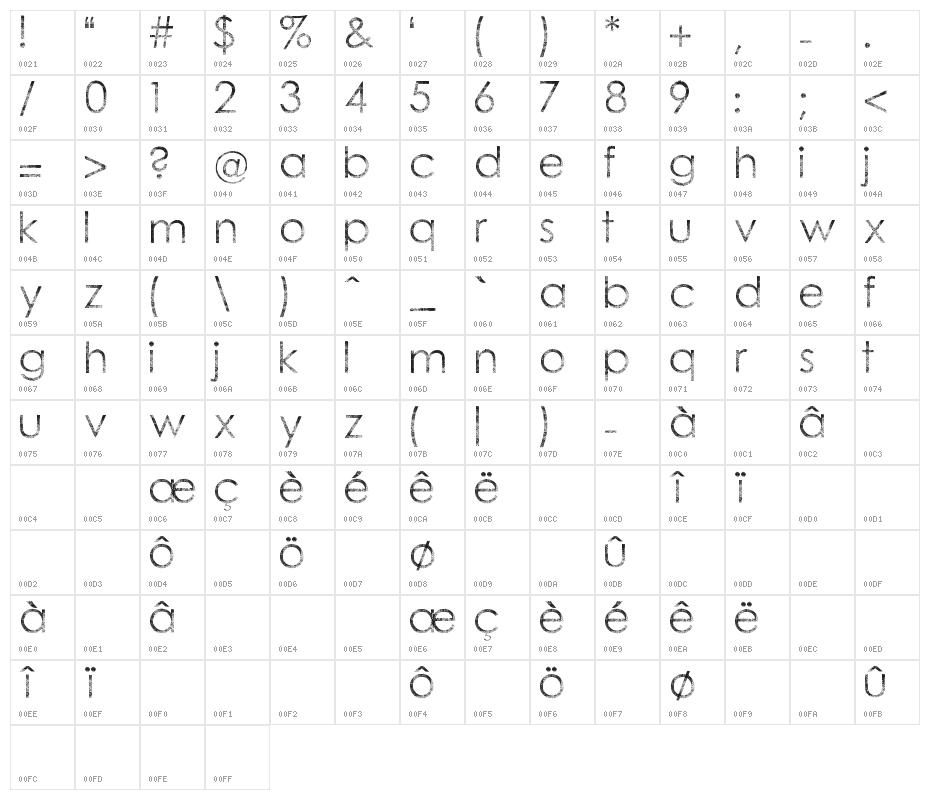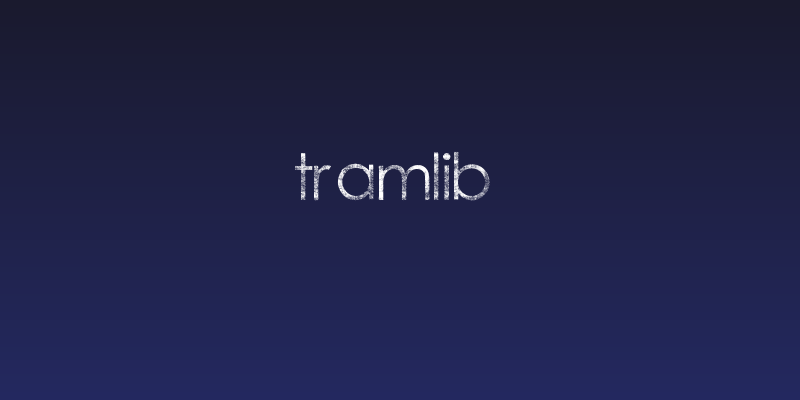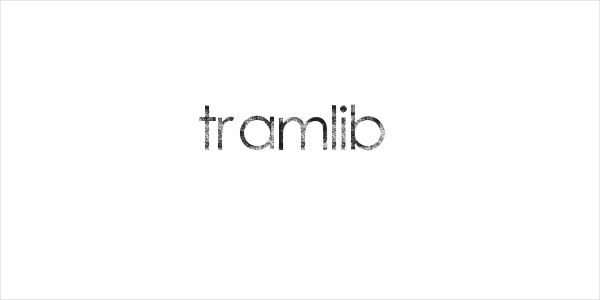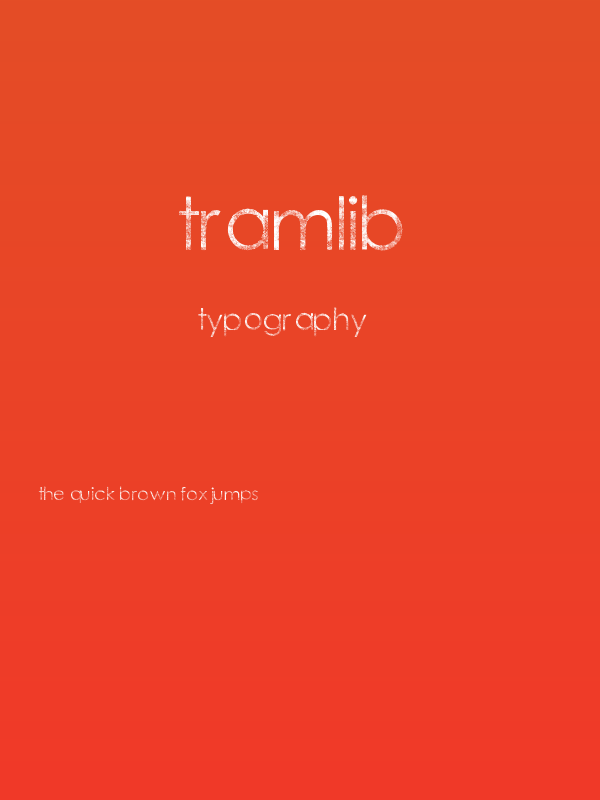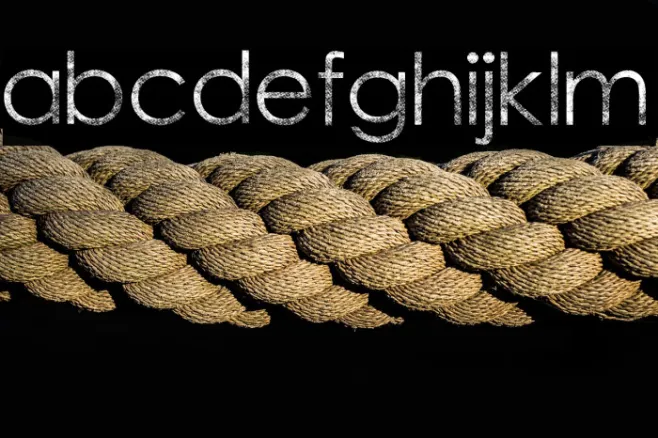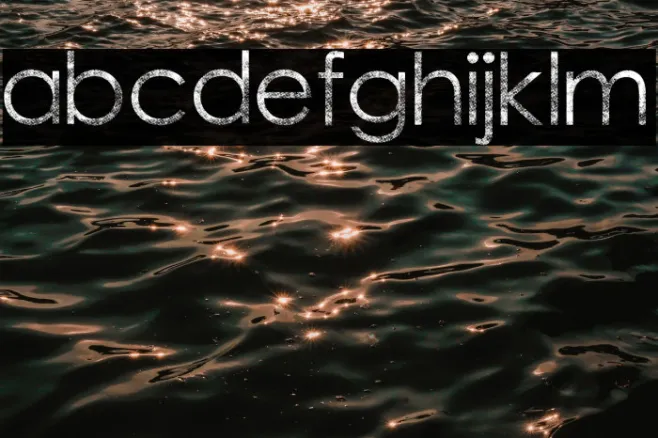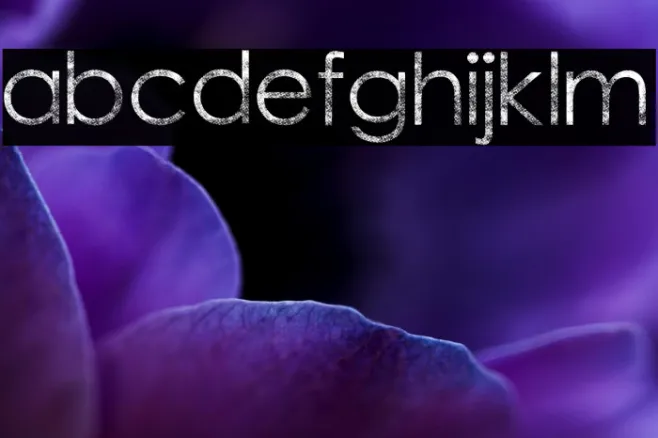
tramlib Font
tramlib Description
This font exhibits a modern and clean sans-serif style with a unique textured appearance. The characters are uniformly designed with a consistent stroke width, giving it a balanced and harmonious look. The texture adds a vintage or distressed feel, making it stand out from typical sans-serif fonts. The letters are well-proportioned, with rounded edges that soften the overall appearance. This font maintains a contemporary aesthetic while incorporating a subtle artistic flair through its textured design. The numerals and special characters are crafted with the same attention to detail, ensuring a cohesive look across all elements.
| Proposed Projects | Ideal for branding projects, posters, and digital media where a modern yet artistic touch is desired. |